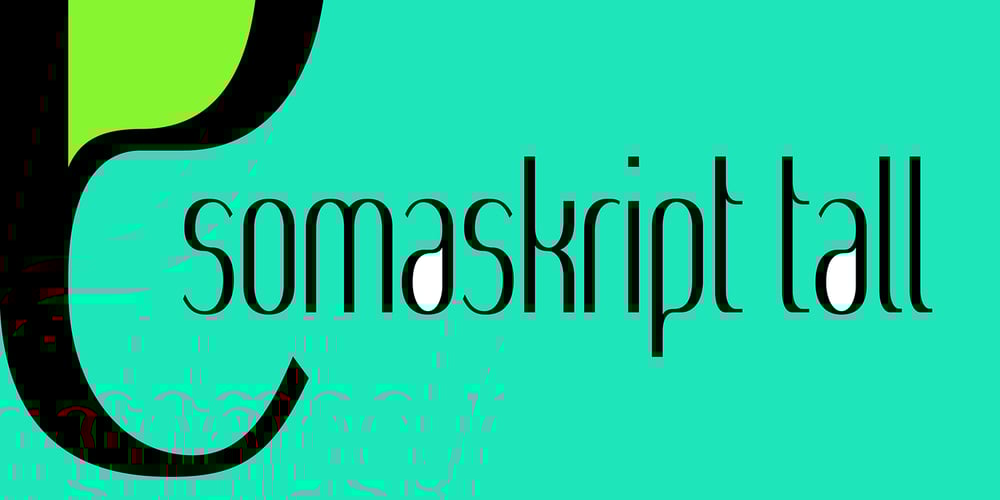
SomaSkript Tall Font Family was designed by James Marsh and published by ArtyType. SomaSkript Tall contains 1 styles and family package options. Somaskript Tall shares the same concept as Somatype Skwosh, namely a desire to ignore traditional rules and re-scale along one axis only. This time the starting point was Somaskript and the end result is a condensed & uniquely elegant display face, vertically extended by the process but with legibility very much intact and its personality preserved.